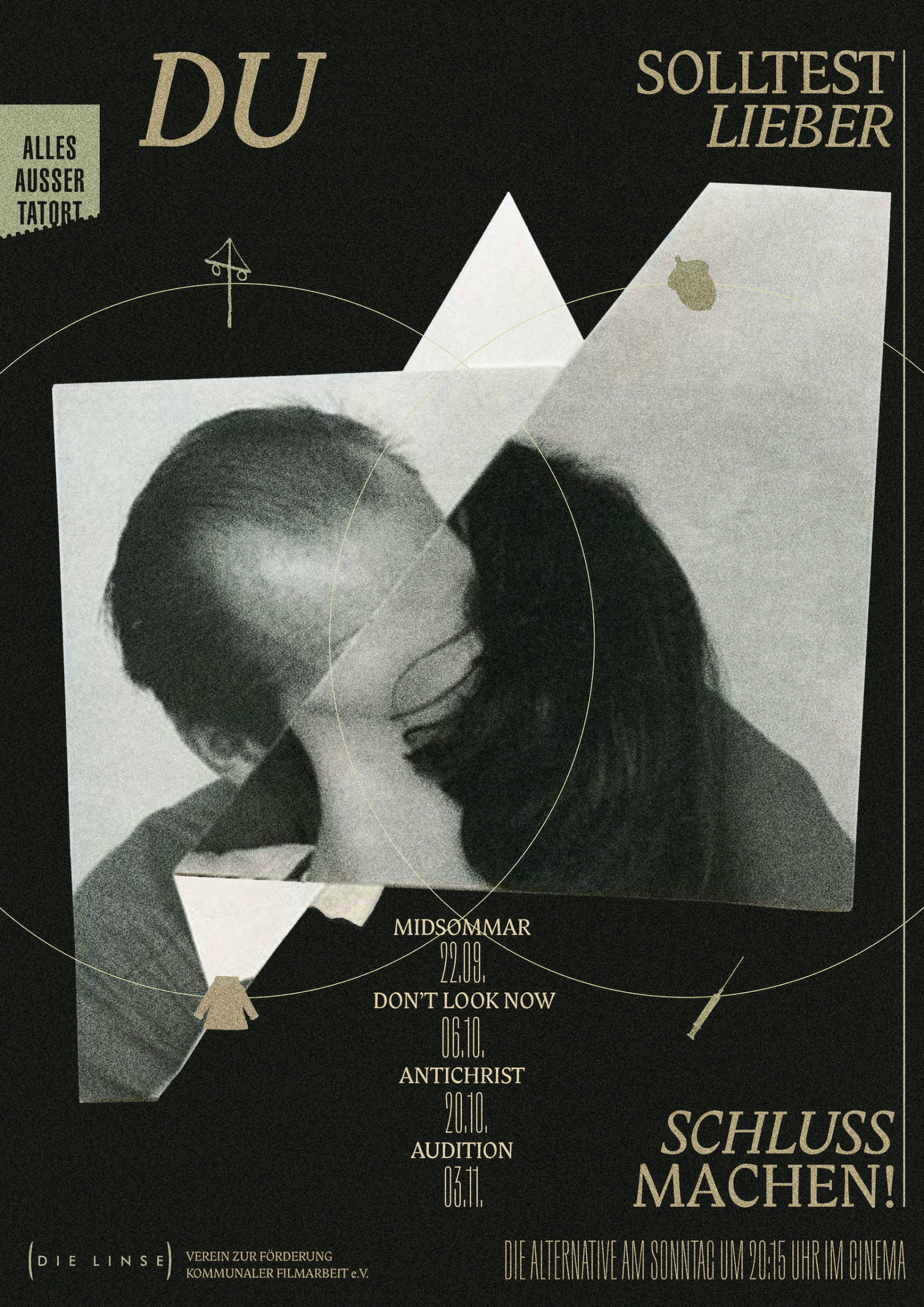
Du solltest lieber Schluss machen
Alles Außer Tatort is a repertory cinema series and exploration of cinematic interactions curated by Anil Jacob Kunnel. Thematically, this edition features horror films that subliminally deal with breakups and their psychological impact. We created a typographic poster which expresses gloom and danger through color choice and the content of the title. The alternative poster contains an image in which the faces of a couple disappear into each other.